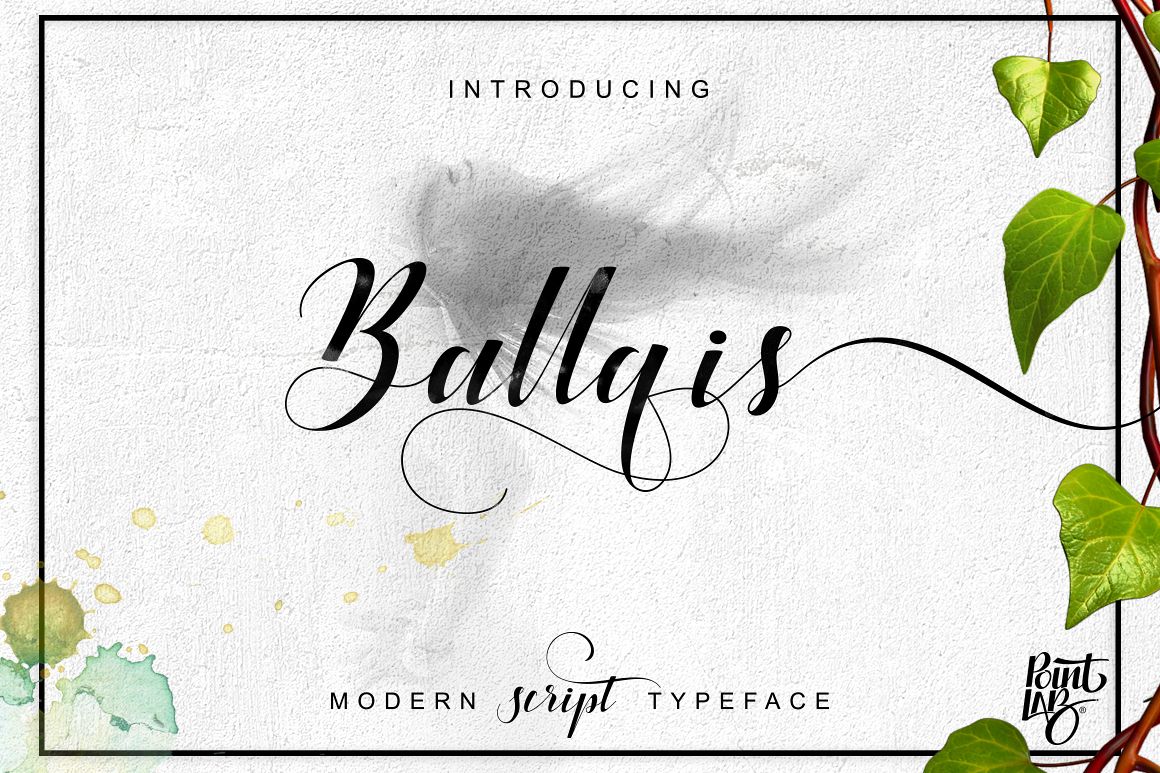
BallqisScript
Ballqis Script - a new fresh & modern script with a calligraphy style, decorative characters and a dancing baseline! So beautiful on invitation like greeting cards, branding materials, business cards, quotes, posters, and more!Ballqis Script come with 1106 more glyphs. The alternative characters were divided into several Open Type features such as Stylistic Sets, Stylistic Alternates and Ligature. The Open Type features can be accessed by using Open Type savvy programs such as Adobe Illustrator, Adobe InDesign, Adobe Photoshop Corel Draw X version, And Microsoft Word. And this Font has given PUA unicode (specially coded fonts). so that all the alternate characters can easily be accessed in full by a craftsman or designerFeatures : Initial Alternates Terminal Alternates Standard ligatures Unique ligatures Stylistic Alternates Stylistic sets SWASH Basic Latin A-Z and a-z Numbers International Symbols include PUA EncodeFiles included :Ballqis Script.otfBallqis Script.ttfWeb FontMail support : If you have any question, please contact me Via e-mail "